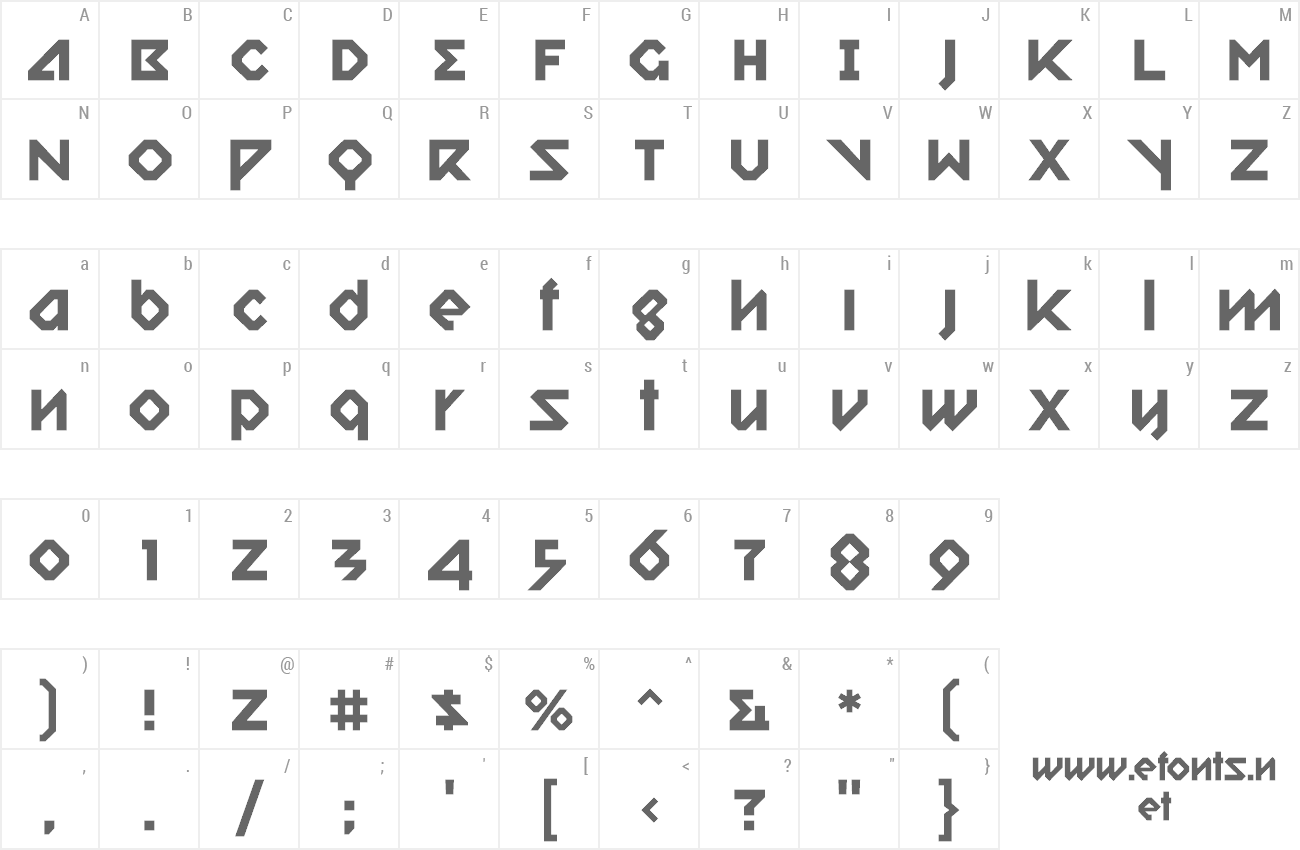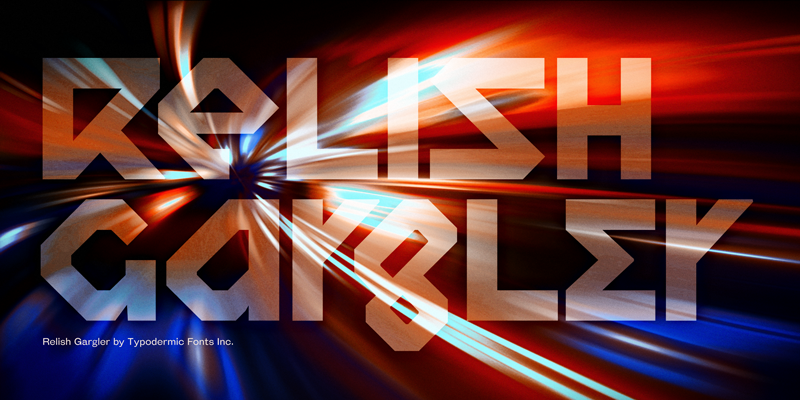
Relish Gargler is a sharp-cornered headline shouter inspired by assorted video game cabinets. This font includes a license that allows free commercial use: sometimes referred to as a desktop license. This allows you to install the font on a computer and use it to create posters, web graphics, game graphics, t-shirts, videos, signs, logos and more. Read the license agreement for details. If you'd like to embed this font in an app, ebook, on the web or anything that's not covered by the desktop license agreement, visit the link below. You'll find distributors who offer different types of licenses or you can contact me for help. http://typodermicfonts.com/relish-gargler/ |